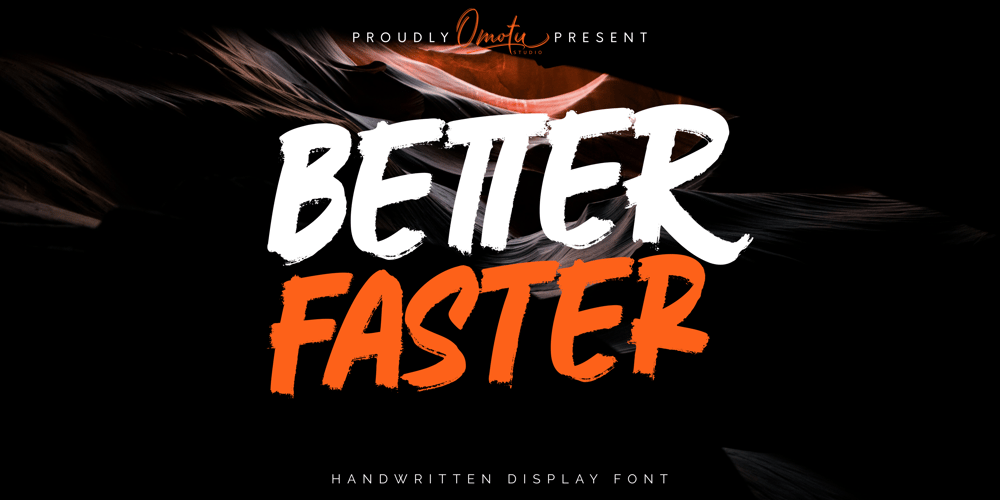
Better Faster Font Family was designed by Ibnu Utomo and published by Omotu. Better Faster contains 2 styles and family package options. BETTER FASTER! A handwritten display brush font. Comes with 2 styls, regular & slant. BETTER FASTER font is suitable for branding, logotype, apparel, T-shirt, Hoodie, product packaging, quotes, flyer, poster, book cover, advertising, etc.Whats Include?1. Opentype support2. Multilingual support3. PUA encoded4. Features: Uppercase, lowercase, numerals, punctuations, alternate, and ligatures5. Accessible in the Adobe Illustrator Glyphs panel, or under Stylistic Alternates in the Adobe Photoshop OpenType menu, Adobe InDesign, Corel Draw, even work on Microsoft Word6. Please message me if you’re unsure of any language support.